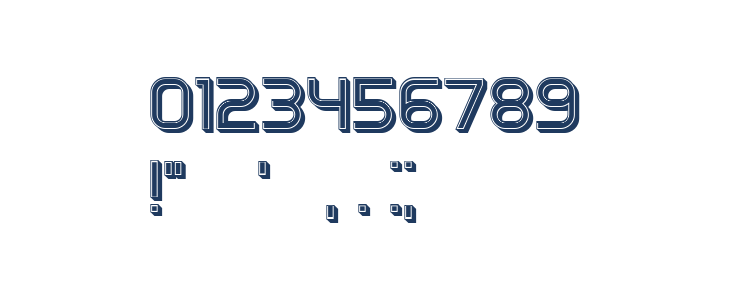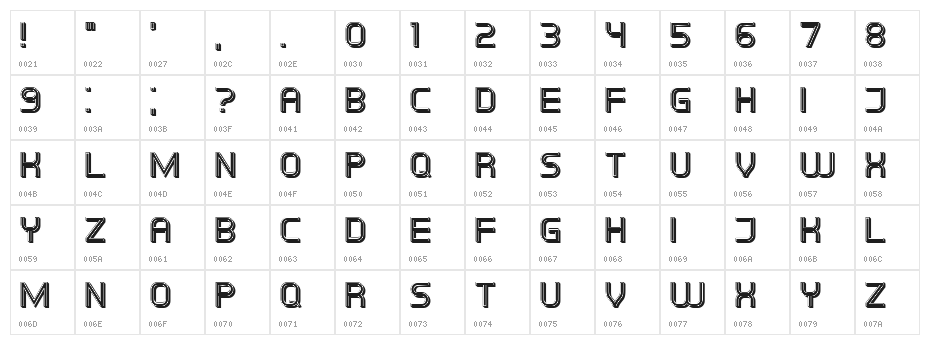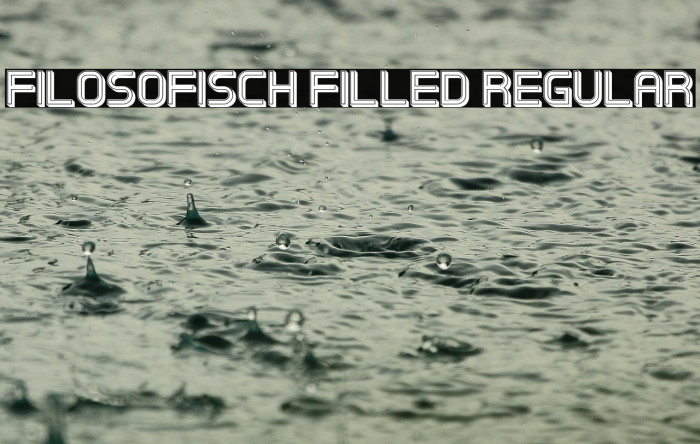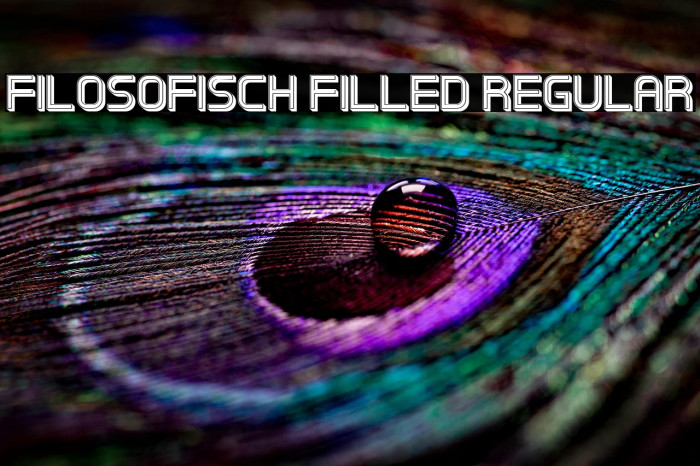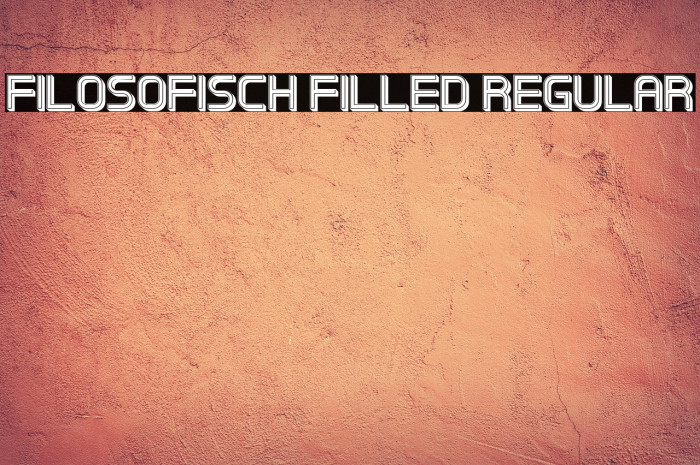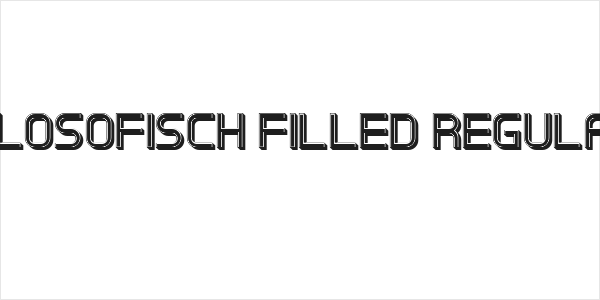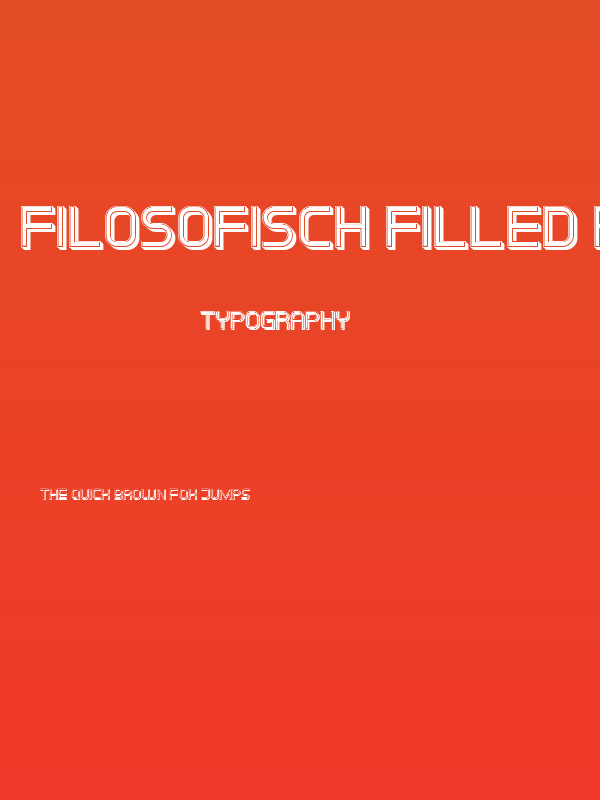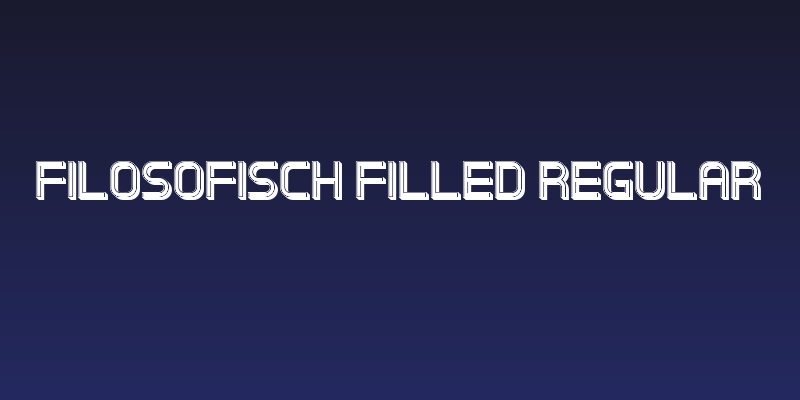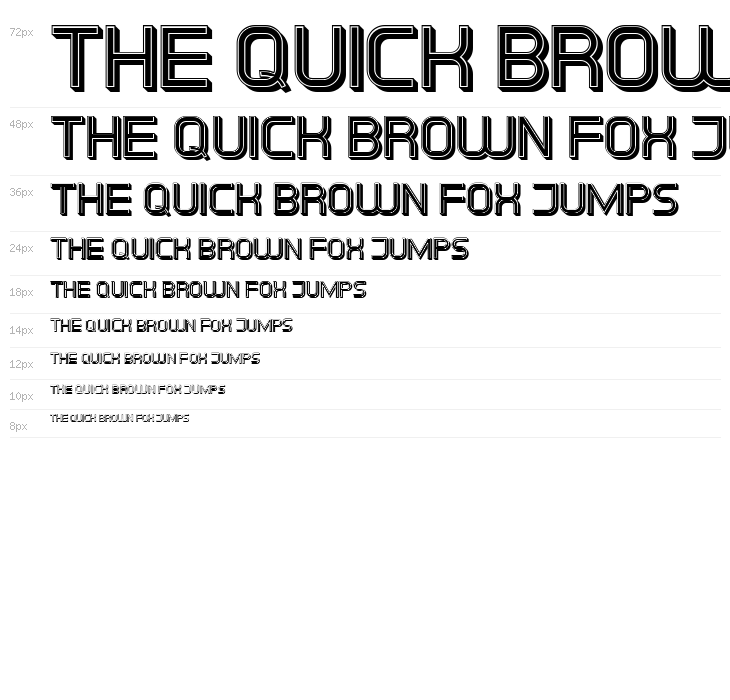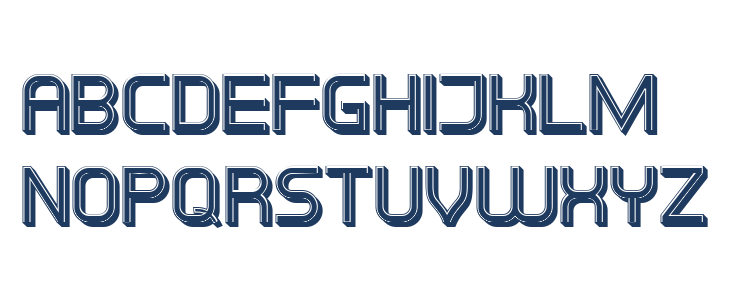
Filosofisch Filled Regular Font
Filosofisch Filled Regular Description
This font features a bold, geometric design with a filled, three-dimensional appearance. The characters are constructed with thick, uniform strokes that create a strong visual impact. The font's style is modern and futuristic, with a distinctive outline that adds depth and dimension. The uppercase and lowercase letters maintain a consistent height, contributing to a cohesive look. The numbers and special characters are designed with the same boldness and geometric precision, ensuring uniformity across all glyphs. This font is ideal for projects that require a striking and contemporary aesthetic.
| Proposed Projects | Ideal for branding, posters, headlines, and digital media that require a bold, modern look. |